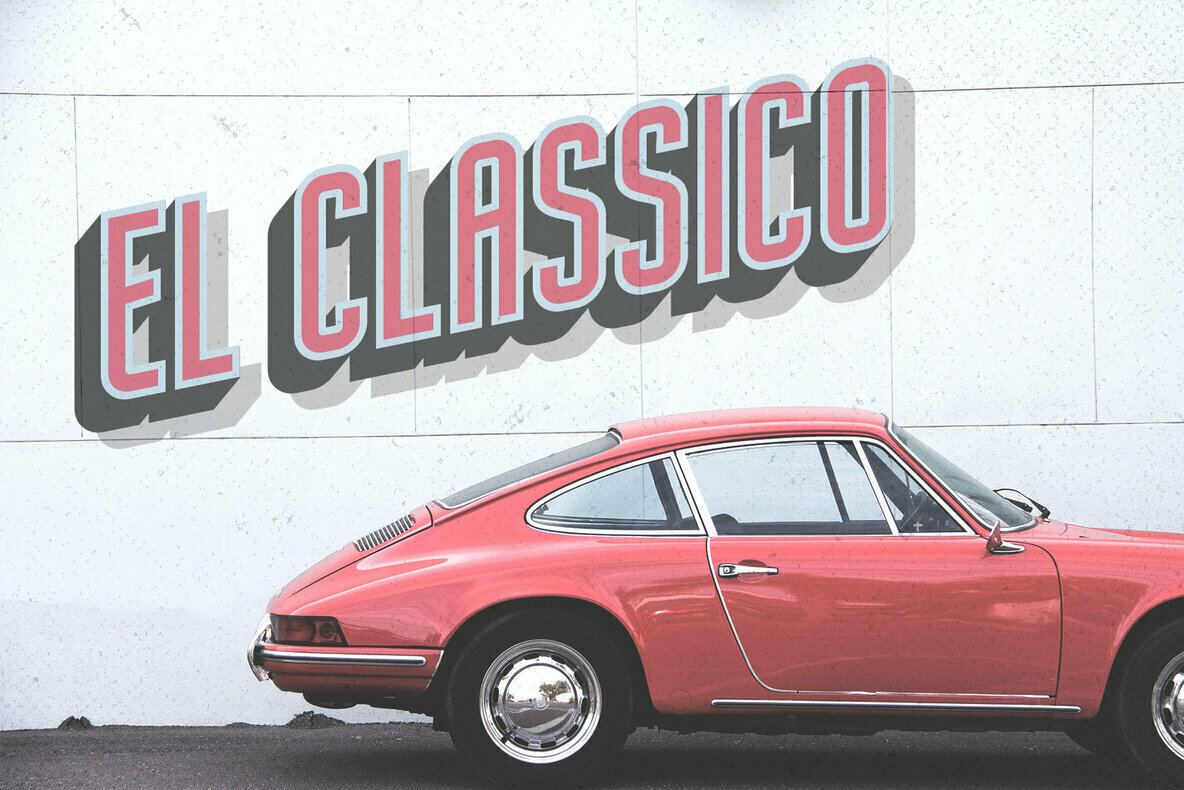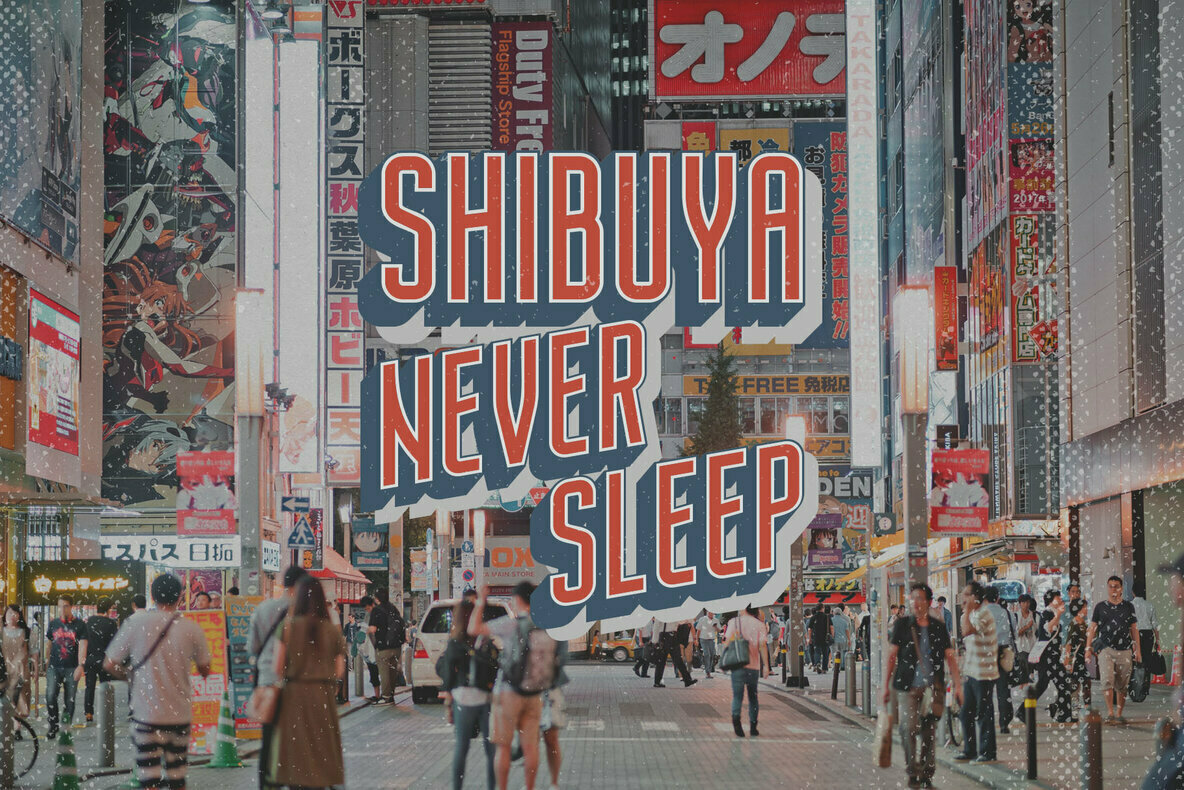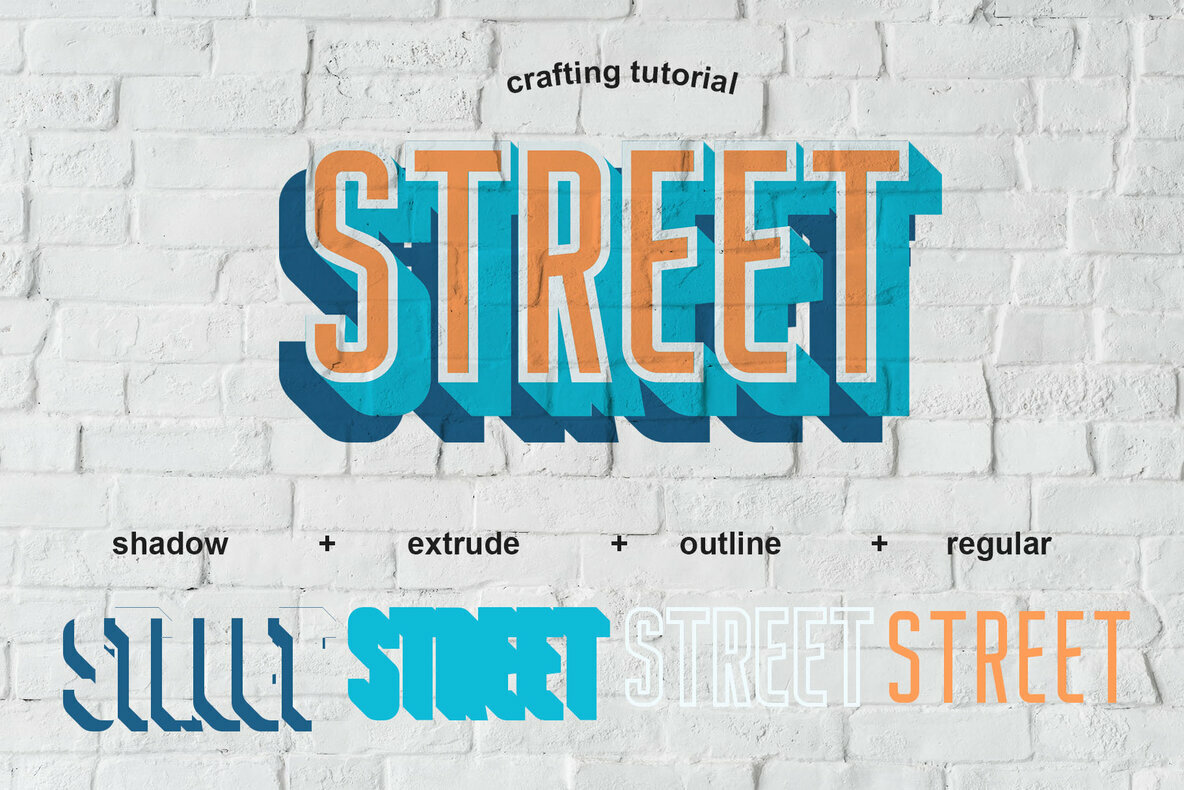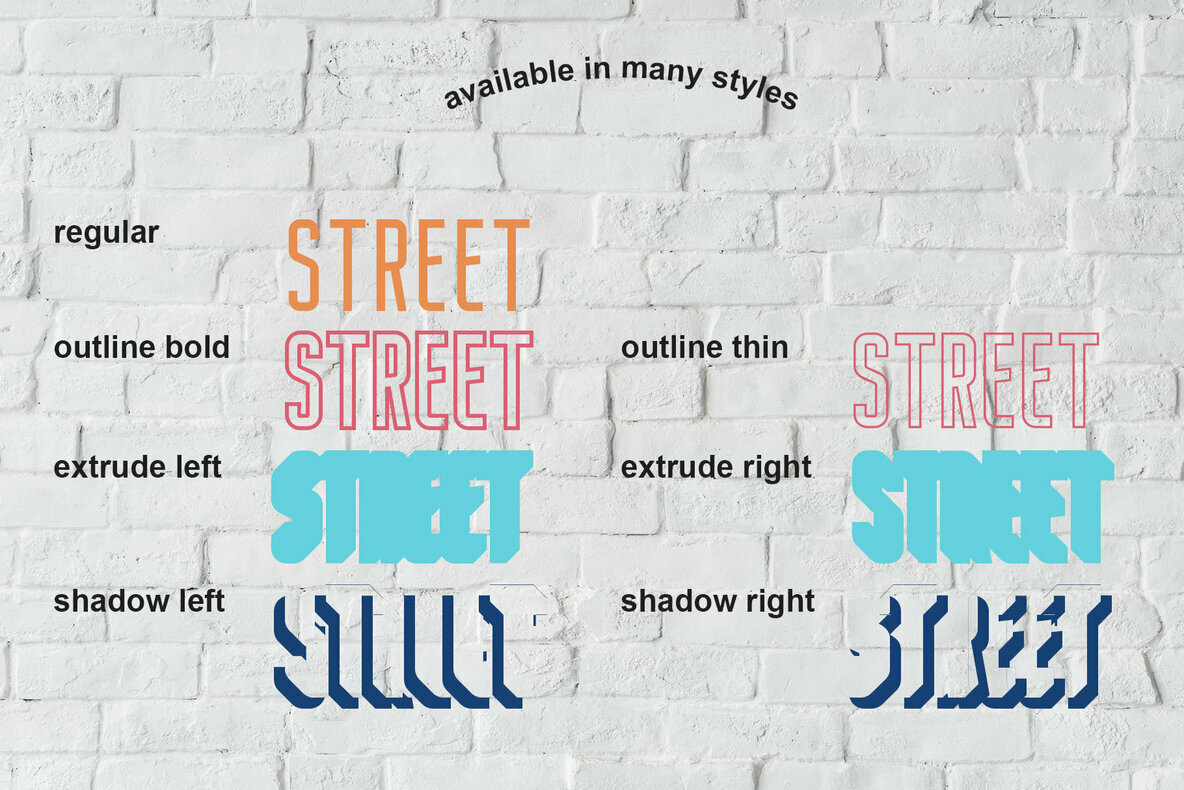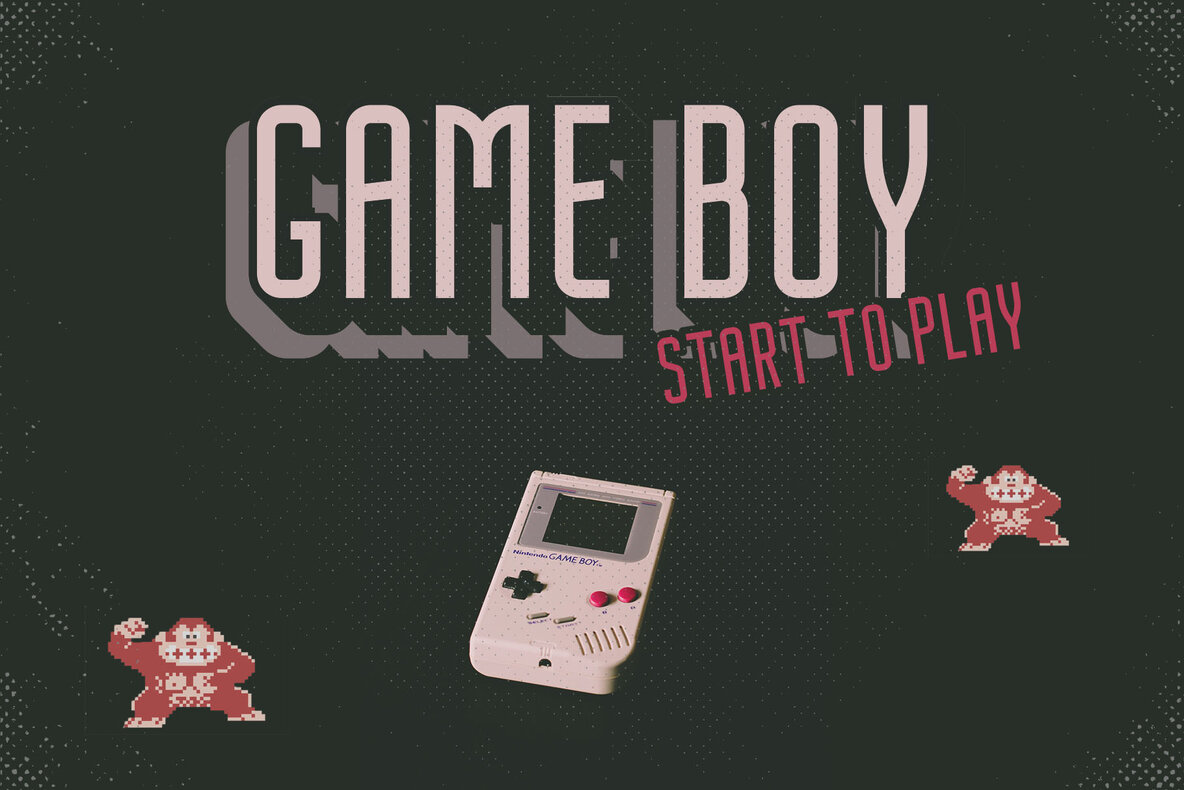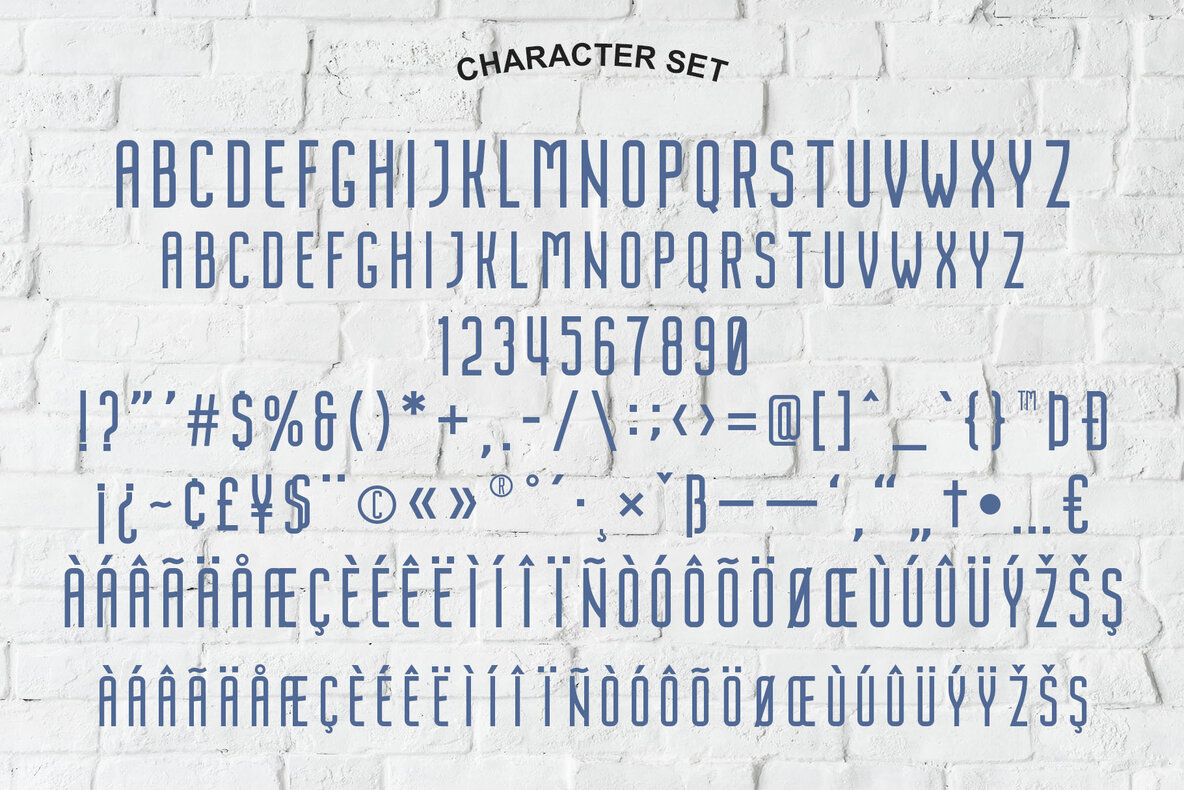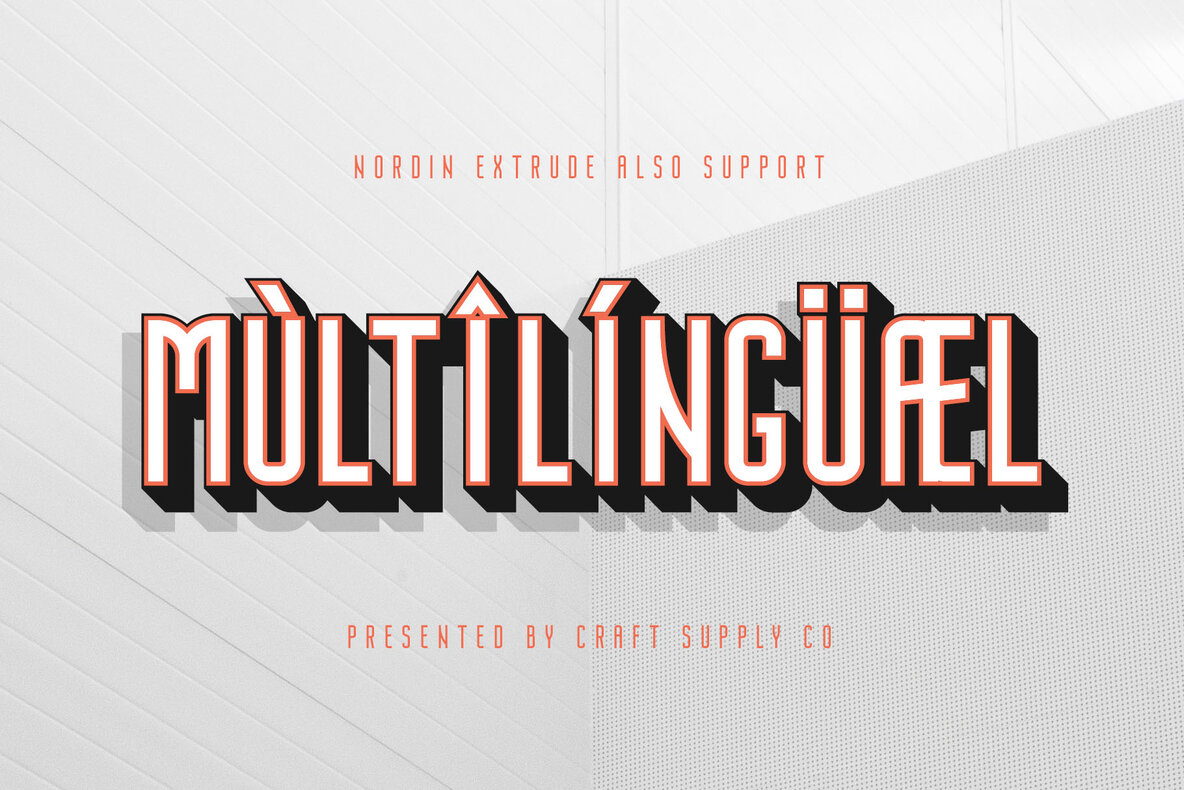
Nordin Extrude Font
Inspired by Retro American and European bold sans serif lettering, Nordin Extrude emerges as a modern typeface with a twist. This contemporary display font offers seven distinct layers, enabling creative chromatic usage that can revive any design project. With its inherent versatility, Nordin Extrude proves ideal for a variety of design applications. From logos and greeting cards to quotes and posters, this font integrates seamlessly into branding and stationery projects. It adds a touch of aesthetic charm to blog headers, typography art, and book designs. Furthermore, it complements dynamic styles such as handcrafted or watercolor themes, craft projects, and vintage design efforts.Nordin Extrude: Multilayered Sans Serif Excellence